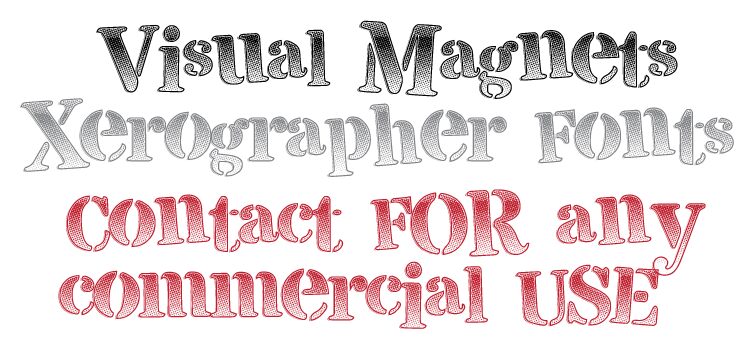
Visual Magnets from Xerographer Fonts is a free eroded military display font with tall slab-serif letters, slightly bowed sides, irregular outlines, and an unusually decorative, speckled interior. The wear resembles ink stamped through a battered screen.
It can turn music posters into rough, handmade ephemera, yet the upright forms also suit game titles, streetwear graphics, and themed event signage. The peppered texture matters in those settings because it lets each letter read as both printed type and a piece of distressed illustration.